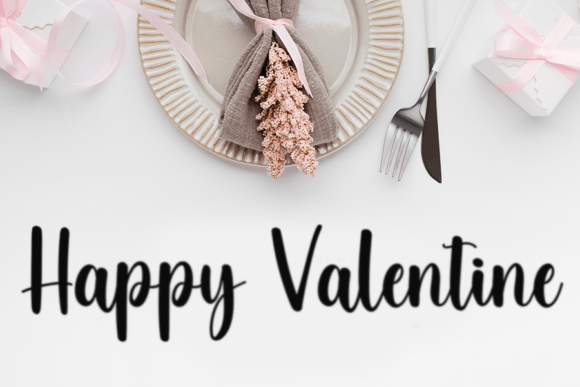
Teacher Font
Teacher is a stylish handwritten font with a contemporary atmosphere and impeccable form, inspired by timeless classic calligraphy. Balanced and varied, this font was designed to enhance the beauty of your projects.